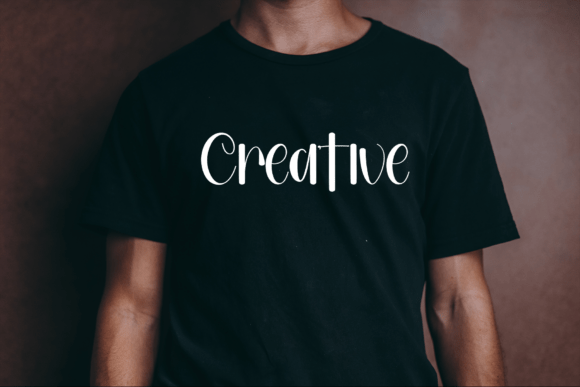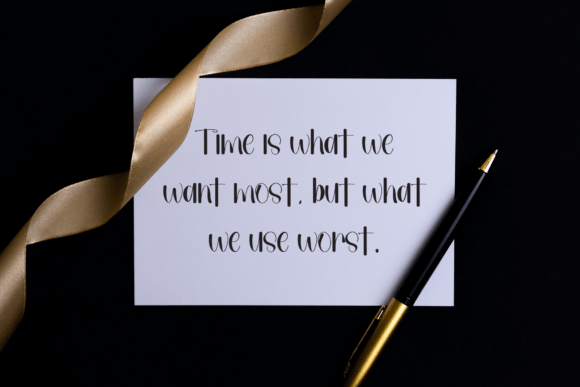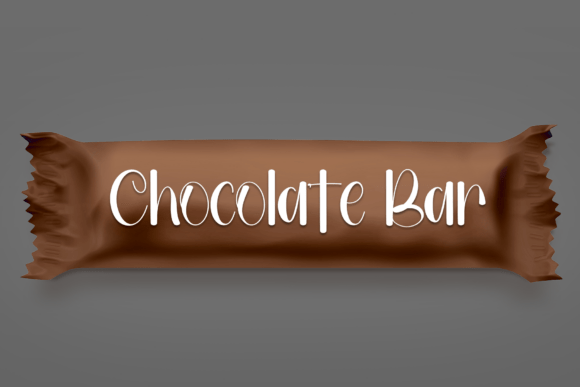
Introduction to Simple Black Font
Have you ever been working on a creative project, pouring your heart and soul into it, and then, the perfect font suddenly pops into your mind? For designers, this moment is pure magic. It’s the spark that ignites the entire design process and sets the tone for a stunning visual identity. One such font that has been making waves in the design community is the Simple Black Font – a sleek and stylish script font that exudes minimalism and modern elegance.
With its tall, refined strokes and graceful curves, Simple Black Font is a game-changer for designers seeking a clean, legible script with a bold personality. Whether you’re working on branding, invitations, product packaging, or social media graphics, this font is sure to elevate your design to the next level. Plus, its versatility and high quality make it a valuable resource for any creative project.
Key Features of Simple Black Font
- High-quality design resource with a clean and minimalist aesthetic, perfect for creative projects.
- Simple Black Font is available in a single weight, ideal for titles, headings, and short text blocks.
Honest Review: Simple Black Font
I recently had the opportunity to try out the Simple Black Font, and I must say it’s a great addition to any design resource. The font is sleek, modern, and perfect for a creative project that needs a touch of sophistication.
- ✨ The font is incredibly versatile and can be used for a wide range of projects, from logos to brochures.
- ✨ The quality is top-notch, with clear and crisp lines that make it perfect for high-resolution printing.
- ⚠️ The font is a bit limited in terms of character set, which can be a problem for projects that require a wide range of characters.
- ⚠️ The font may not be suitable for projects that require a lot of fine detail, as the lines can be a bit bold.
Overall, I’m really impressed with the Simple Black Font. It’s a high-quality resource that’s perfect for designers who want a simple, yet elegant font for their creative projects.